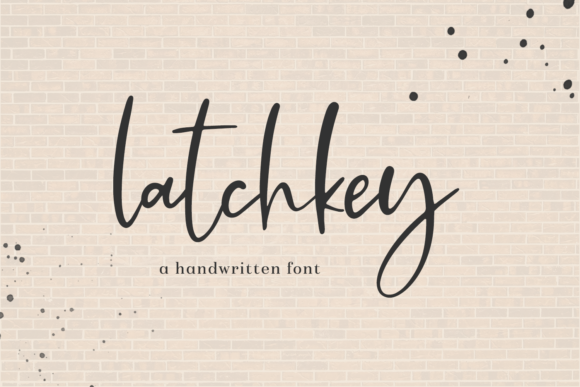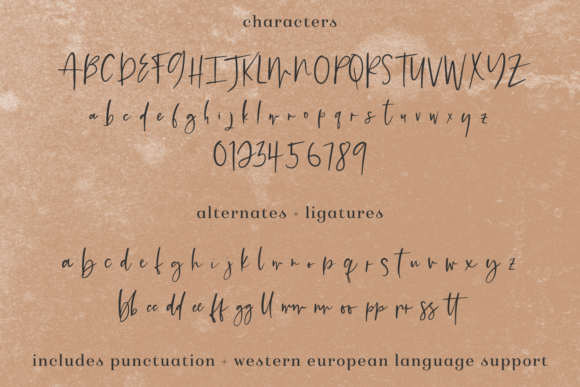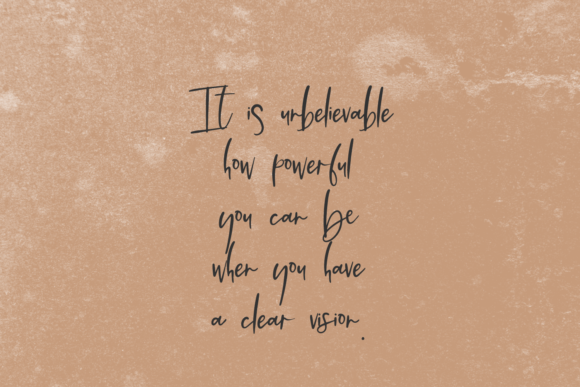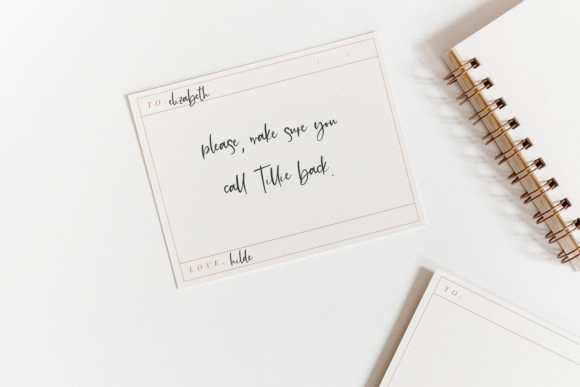
About Latchkey Font
Latchkey is a refined script font. This font is neatly crafted and highly detailed. Whatever the topic, this font will be a wonderful asset to your font library, as it has the potential to enhance any creation. This font is PUA encoded which means you can access all glyphs and swashes with ease!